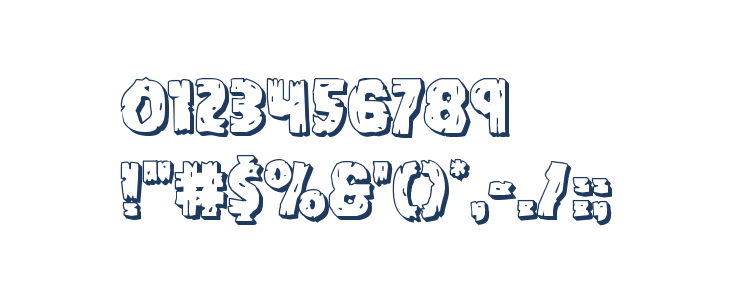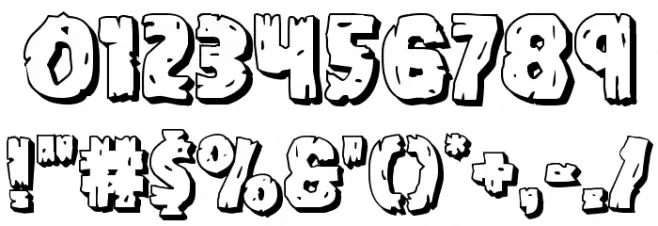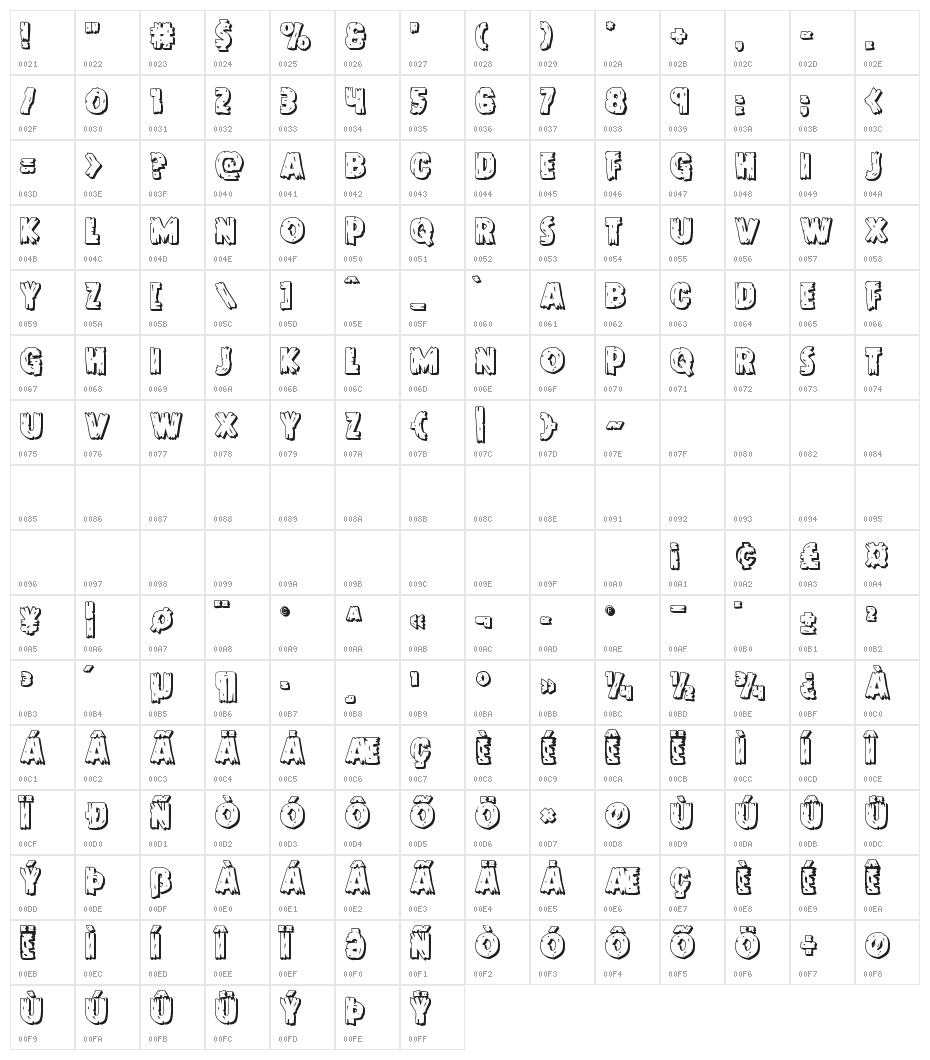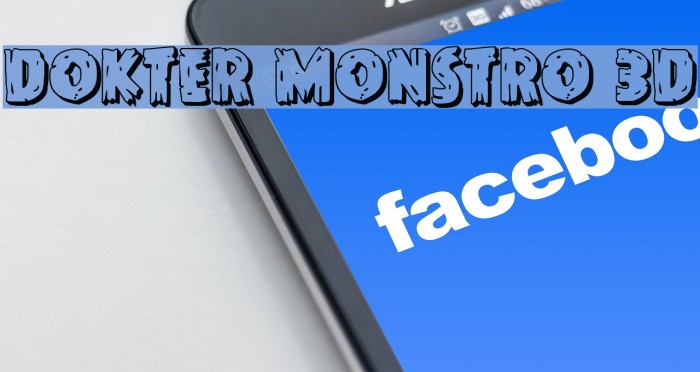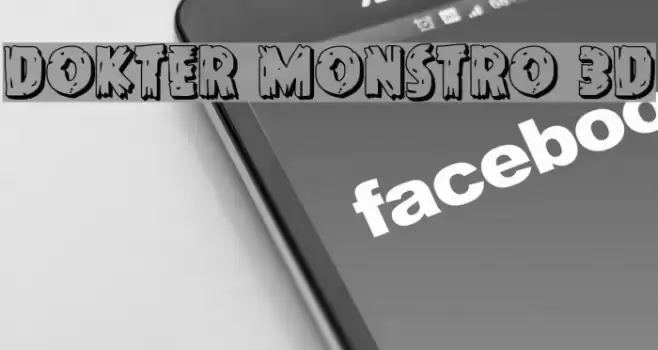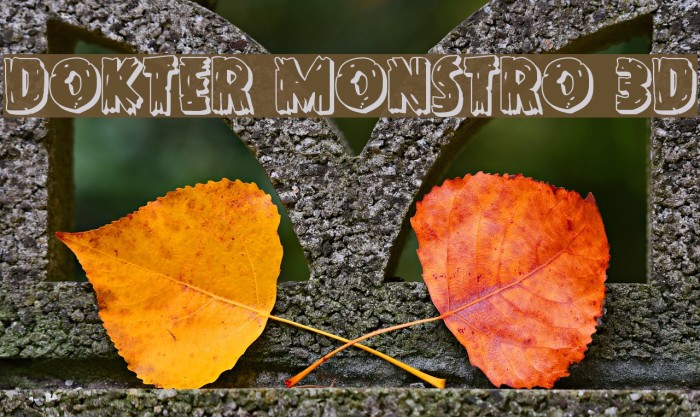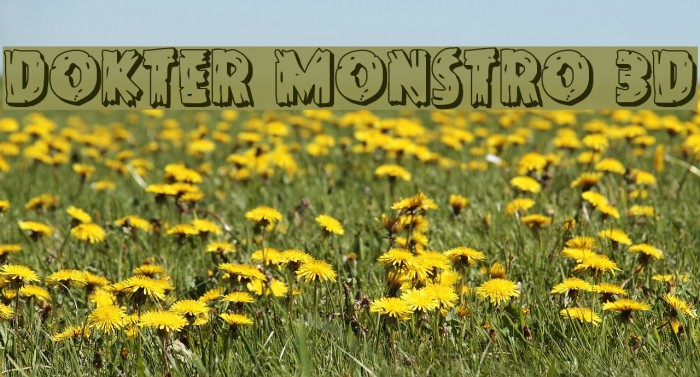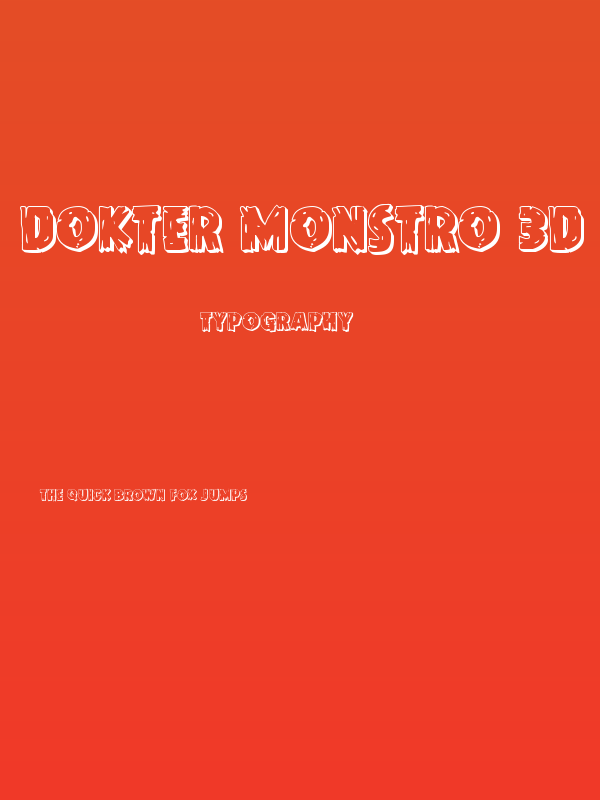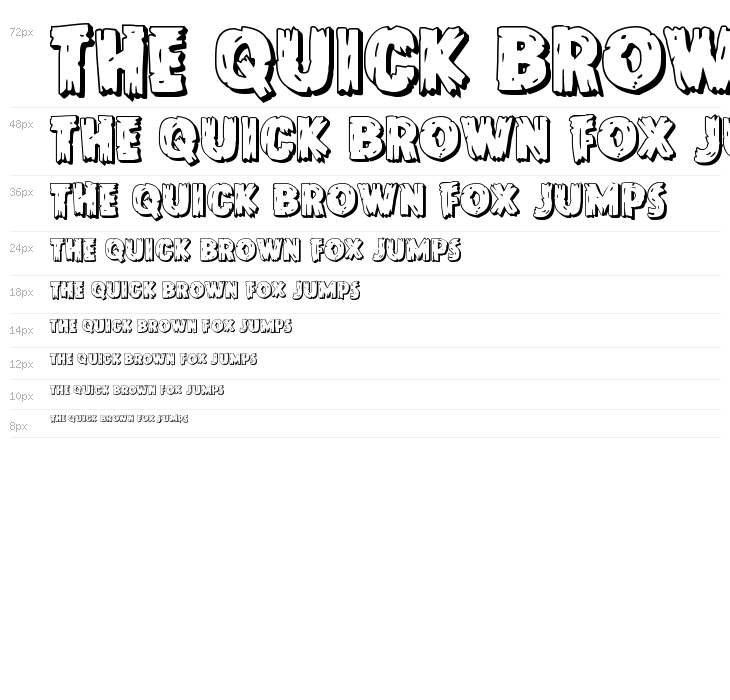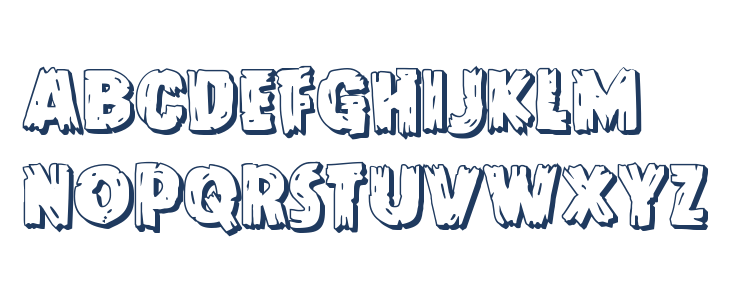
Dokter Monstro 3D Font
Dokter Monstro 3D Description
This font features a bold, playful design with a three-dimensional effect that gives each character a sense of depth and shadow. The letters are chunky and have a slightly irregular outline, adding a whimsical and dynamic feel. The style is reminiscent of comic book lettering, with exaggerated serifs and a hand-drawn appearance. The characters are tightly spaced, enhancing the boldness and impact of the text. This font is ideal for projects that require a fun and eye-catching aesthetic, such as children's book covers, posters, or themed event invitations.
| Overall Style | Playful, Comic |
| Use Case | Headlines, Posters, Logos |
| Proposed Projects | Ideal for children's books, comic strips, playful posters, and themed event invitations. |